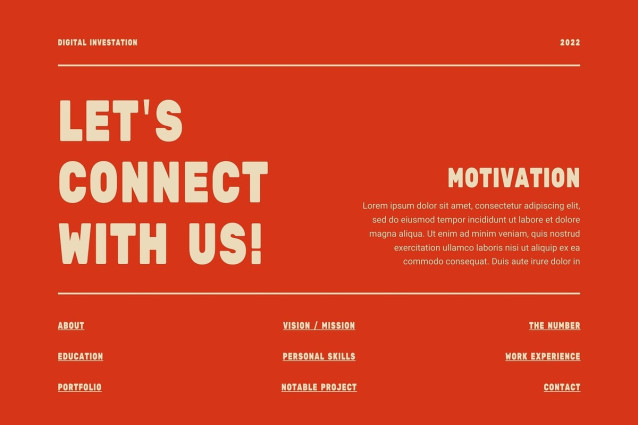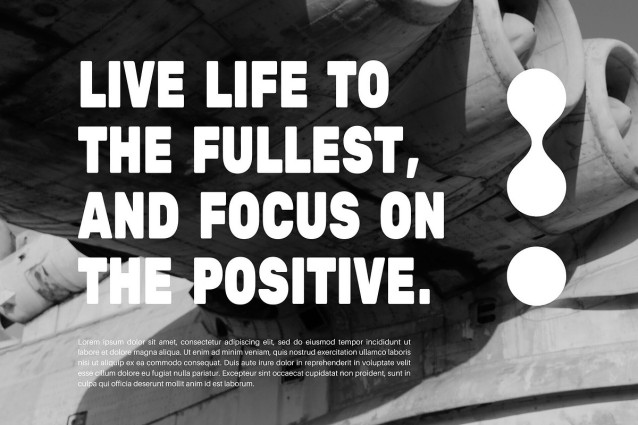
Everyone Sans Font
Everyone Sans Font, modern sans serif font with elegant style this is perfect for branding, logos, invitation, magazines, product packaging and more.